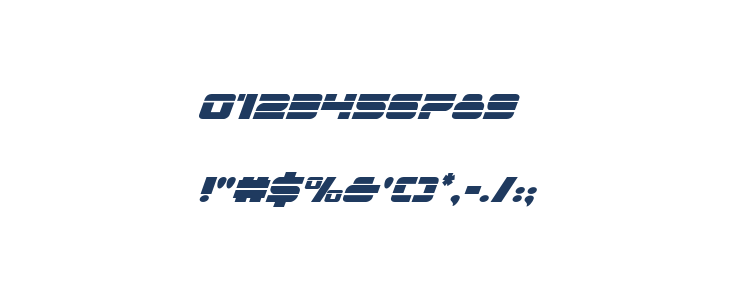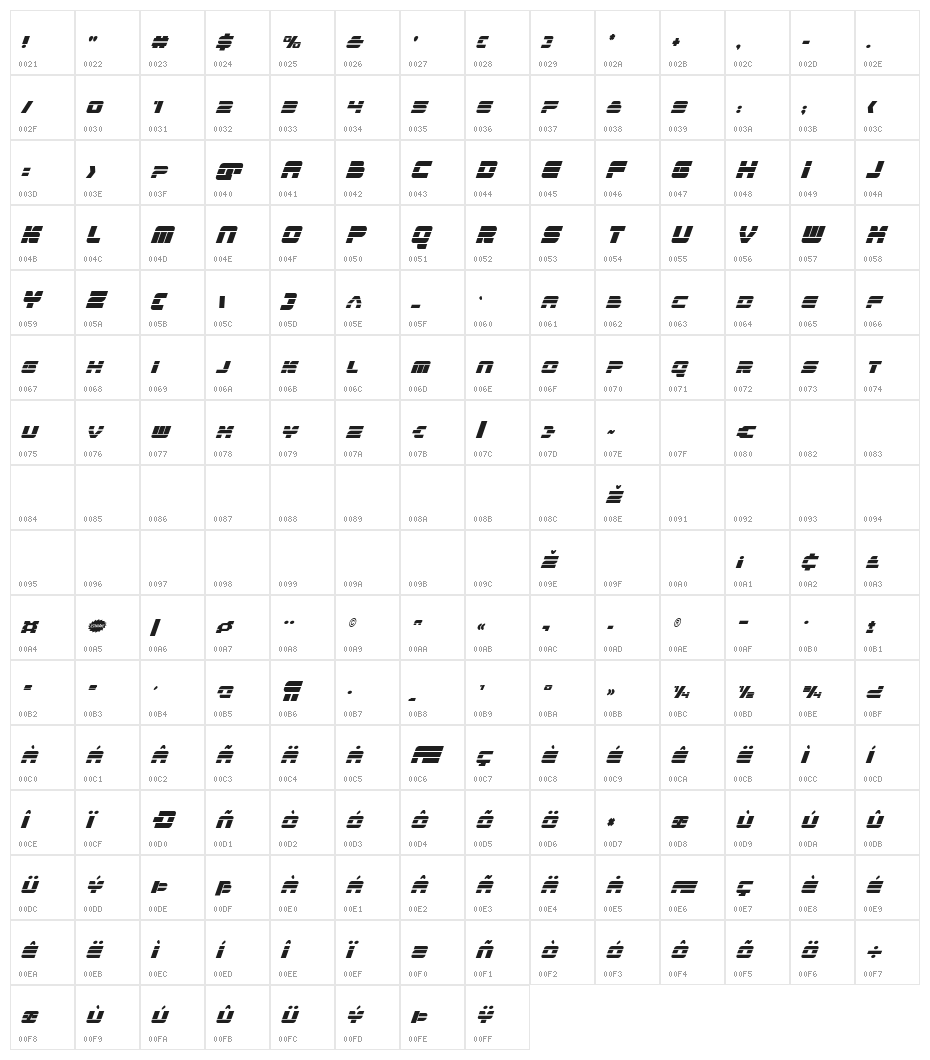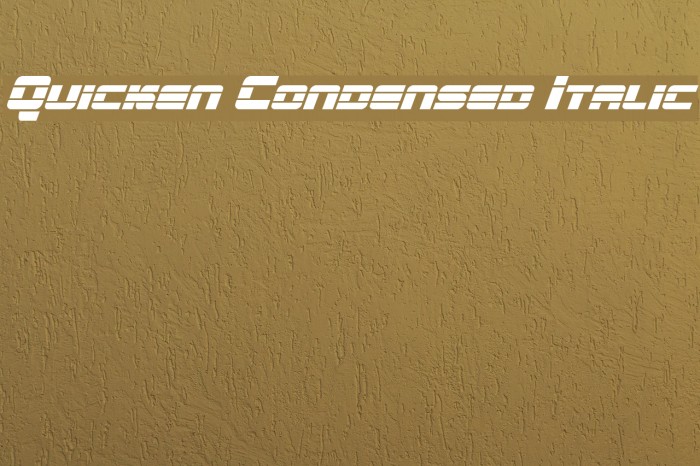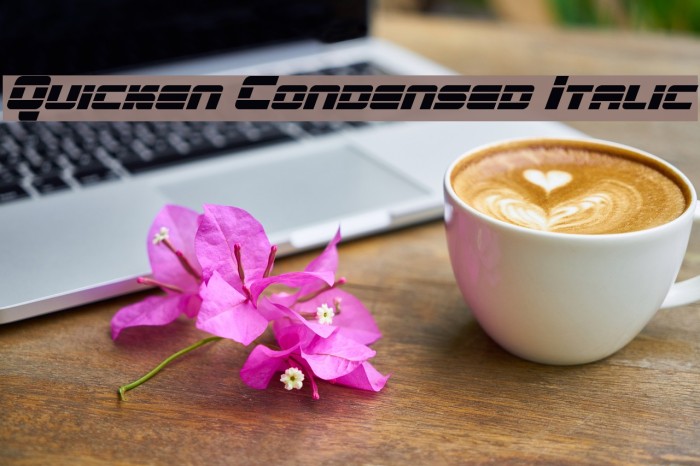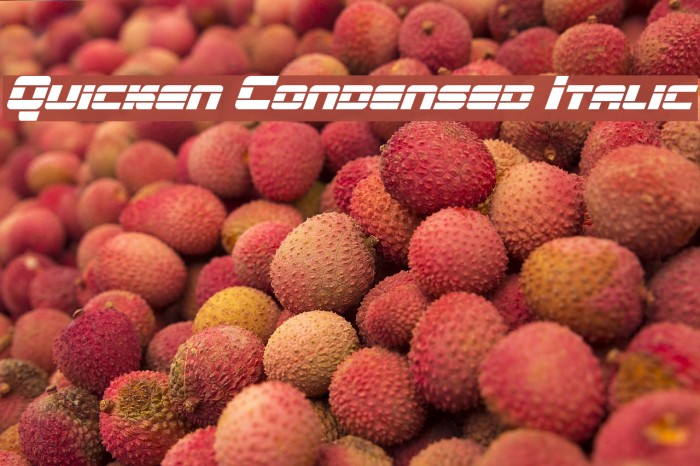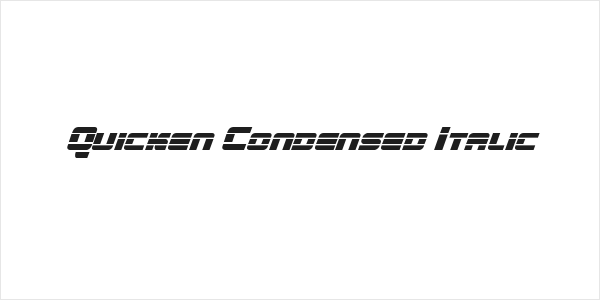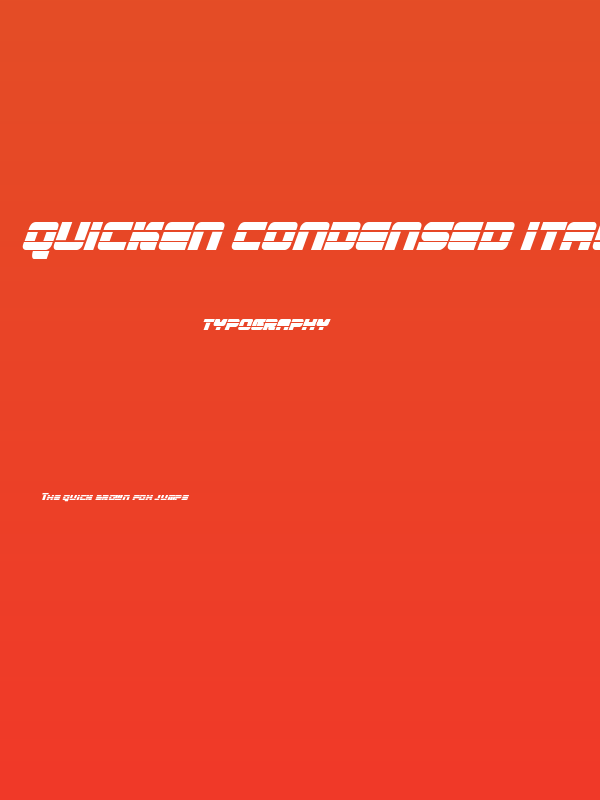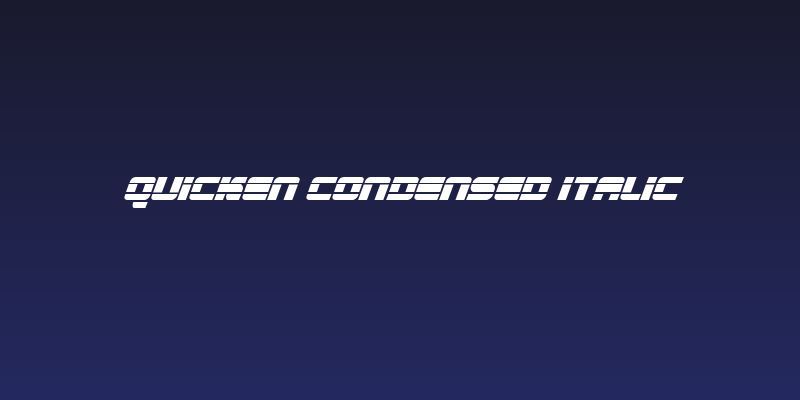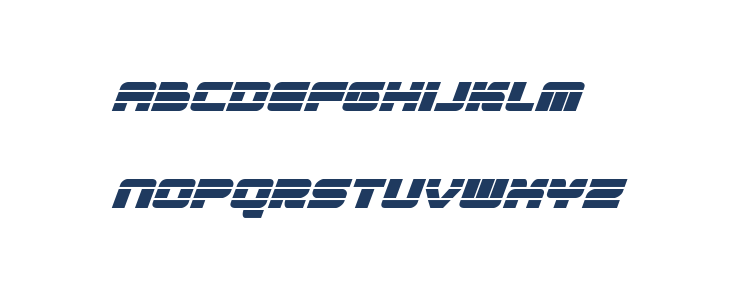
Quicken Condensed Italic Font
Quicken Condensed Italic Description
This font features a bold, italicized style with a distinctly modern and futuristic appearance. The characters are condensed and exhibit a unique segmented design, giving them a dynamic and fast-paced look. The uppercase and lowercase letters maintain a consistent style, with sharp angles and clean lines that enhance readability despite the decorative elements. The numbers and special characters follow the same design principles, ensuring uniformity across all glyphs. This font's striking appearance makes it ideal for projects that require a strong visual impact.